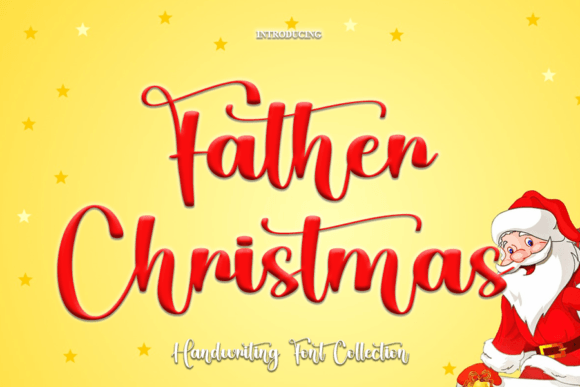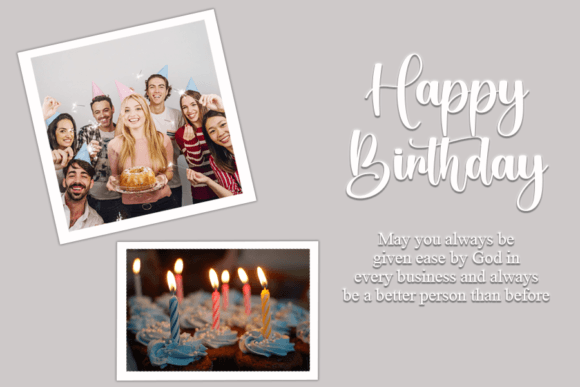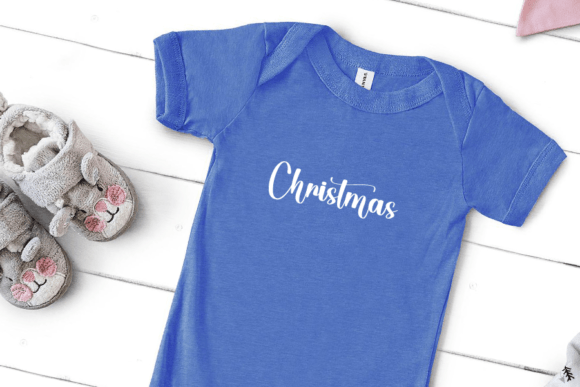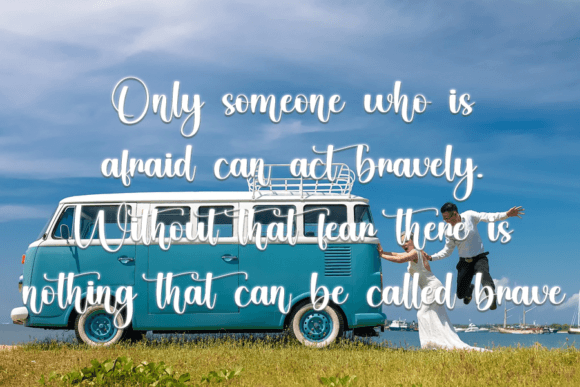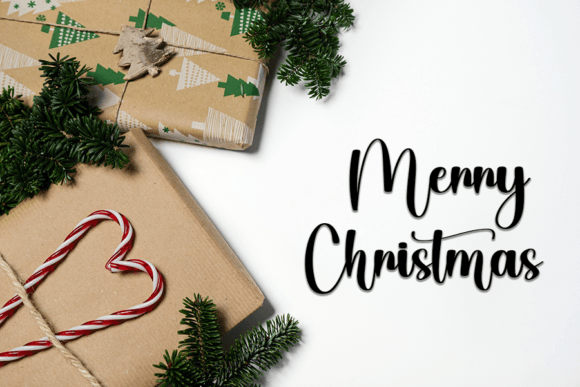
About Father Christmas Typeface
Father Christmas Typeface is a delicate handwritten script designed to add elegance and warmth to creative projects. With flowing curves and a festive style, this typeface combines personality with sophistication. Because of its versatility, Father Christmas Typeface is perfect for invitations, holiday cards, packaging, posters, and seasonal branding projects.
A Handwritten Typeface with Holiday Elegance
Handwritten fonts are valued for their charm, and Father Christmas Typeface enhances that quality with smooth strokes and timeless flow. Its festive energy adapts well to both modern layouts and traditional designs. As a result, it is an excellent choice for designers who want personality and elegance in one typeface.
Perfect Script for Invitations and Seasonal Cards
For personal stationery and event designs, Father ChristmasTypeface is a natural fit. For example, it elevates wedding invitations, holiday greetings, and thank-you notes into stylish keepsakes. In addition, its handwritten touch makes posters and seasonal cards more memorable and authentic.
A Typeface for Branding and Packaging
Businesses and professionals also benefit from Father ChristmasTypeface. It adds sophistication to logos, product labels, and food packaging. Moreover, in digital platforms such as social media posts, ads, and banners, this handwritten script delivers personality while staying legible.
Flexible Across Print and Digital Media
Another strength of Father ChristmasTypeface is its adaptability across mediums. In print, it looks sharp on brochures, flyers, and merchandise. Digitally, it integrates smoothly with websites, presentations, and online campaigns. Since it remains clear in both small and large sizes, it is reliable for projects ranging from cards to posters.